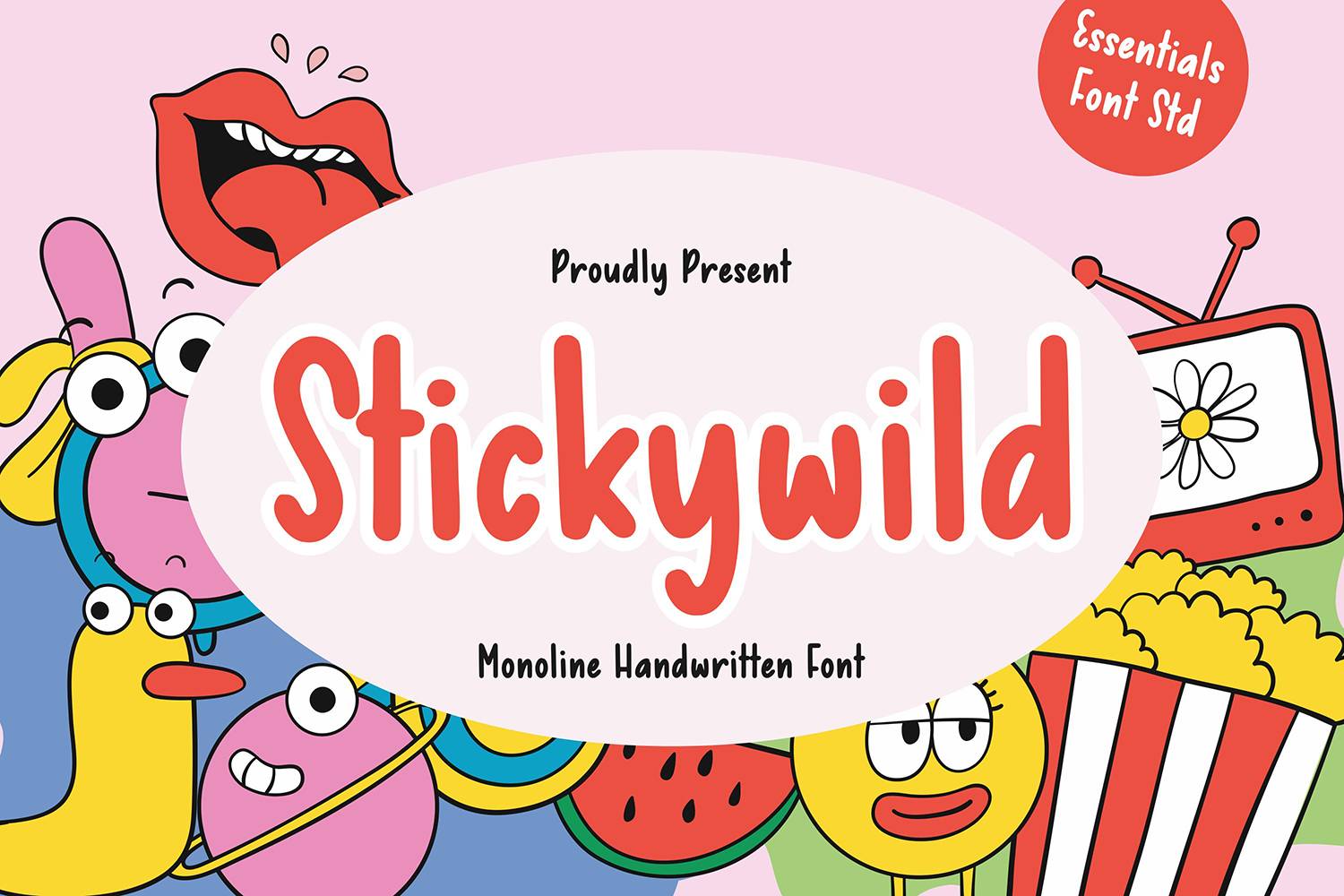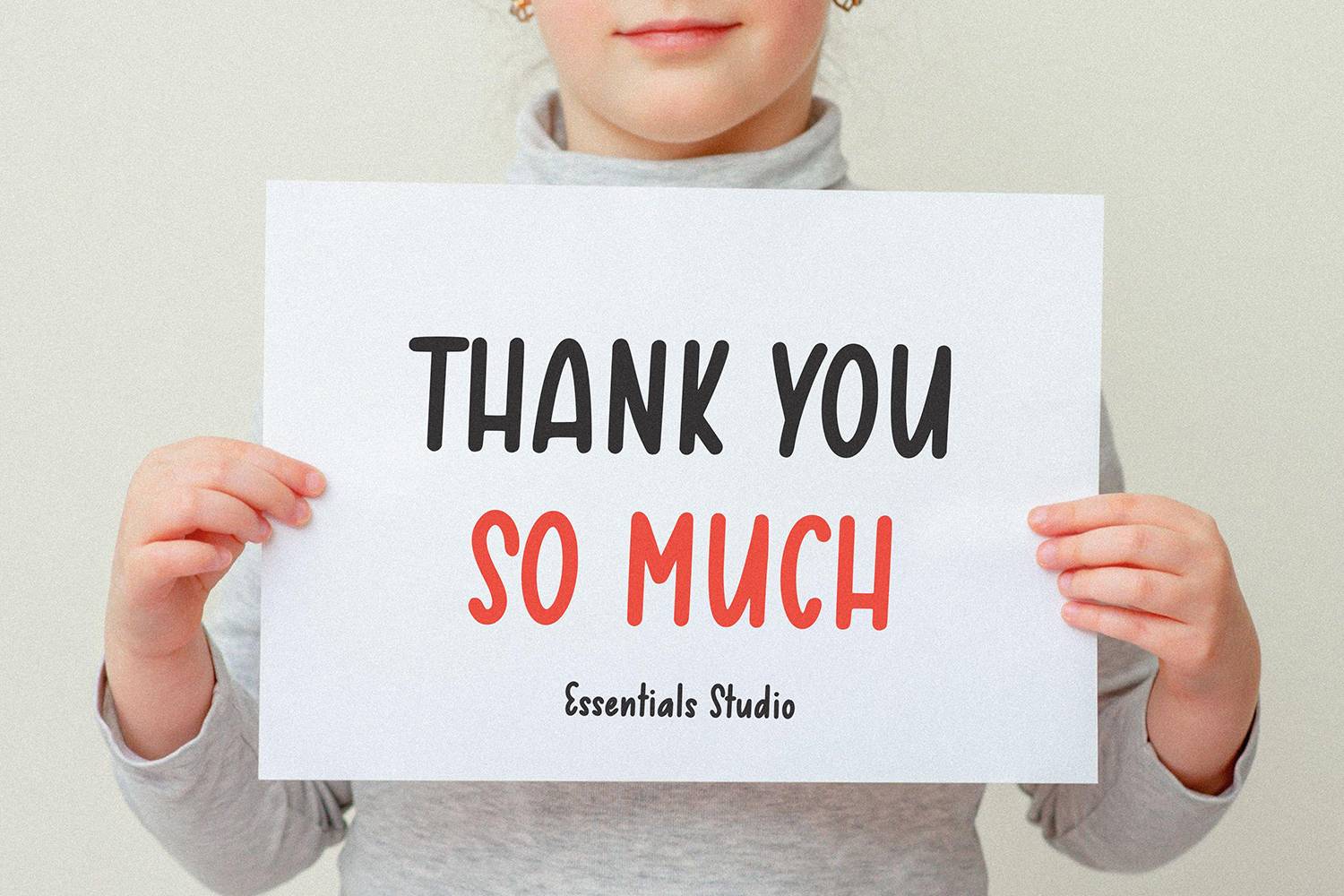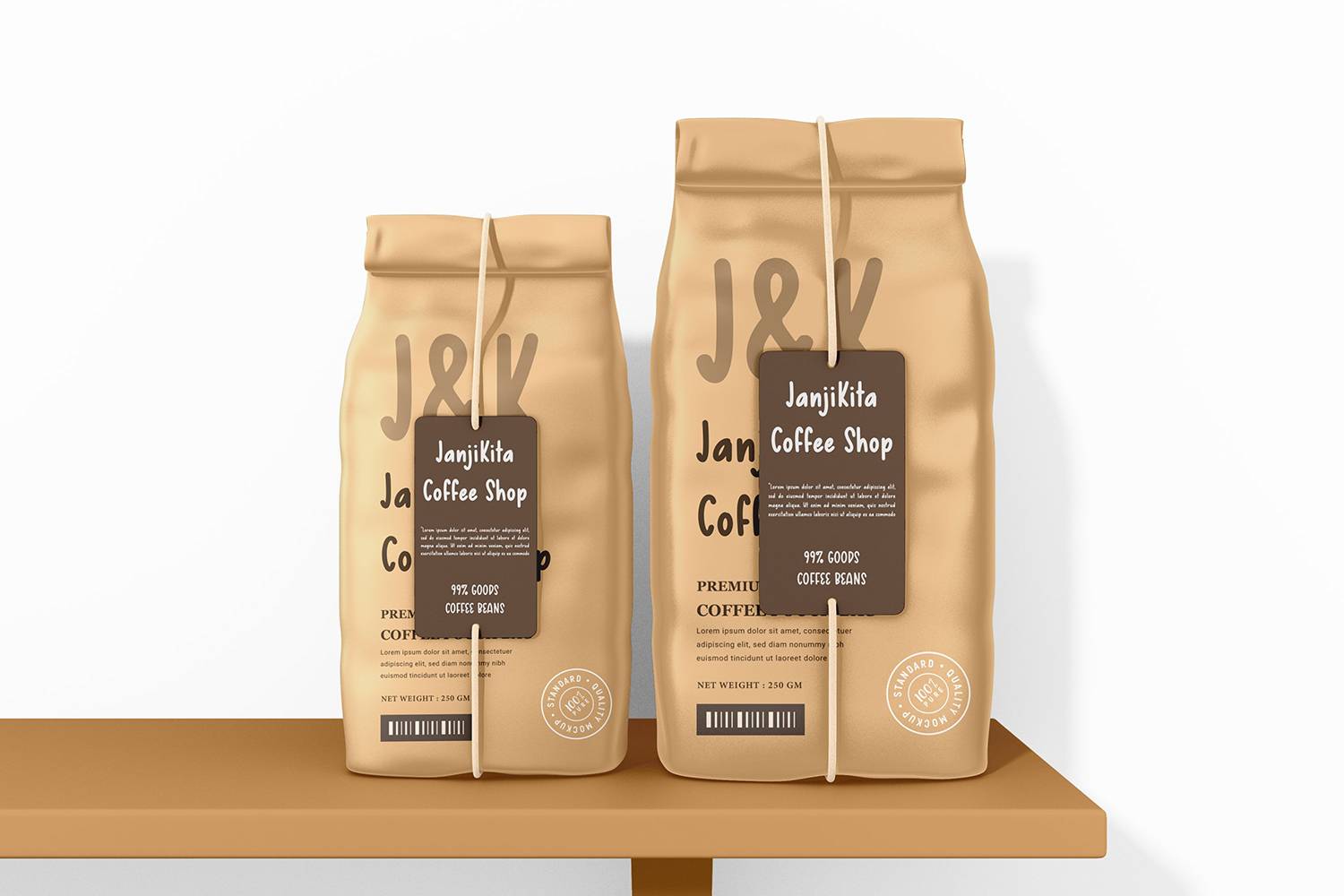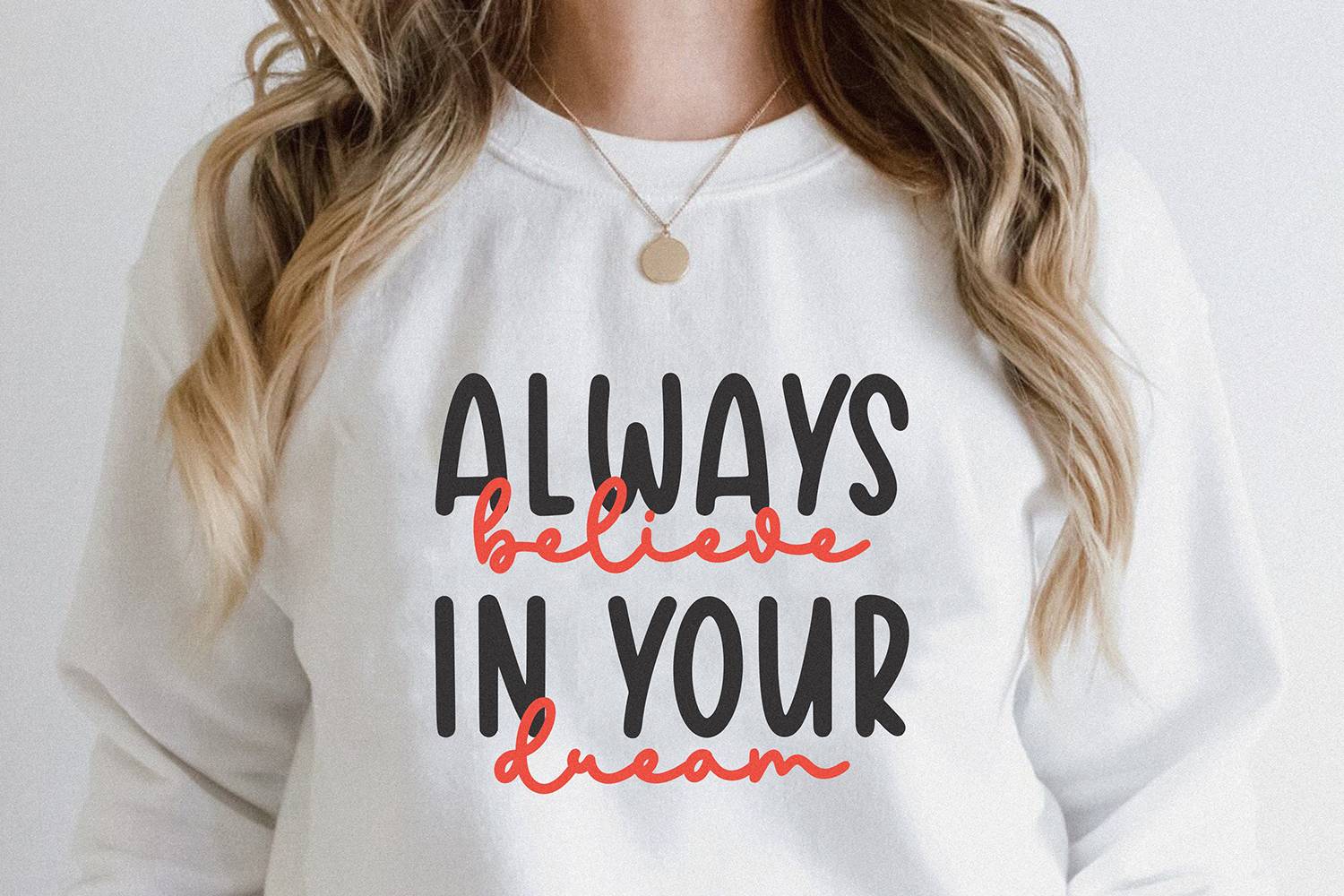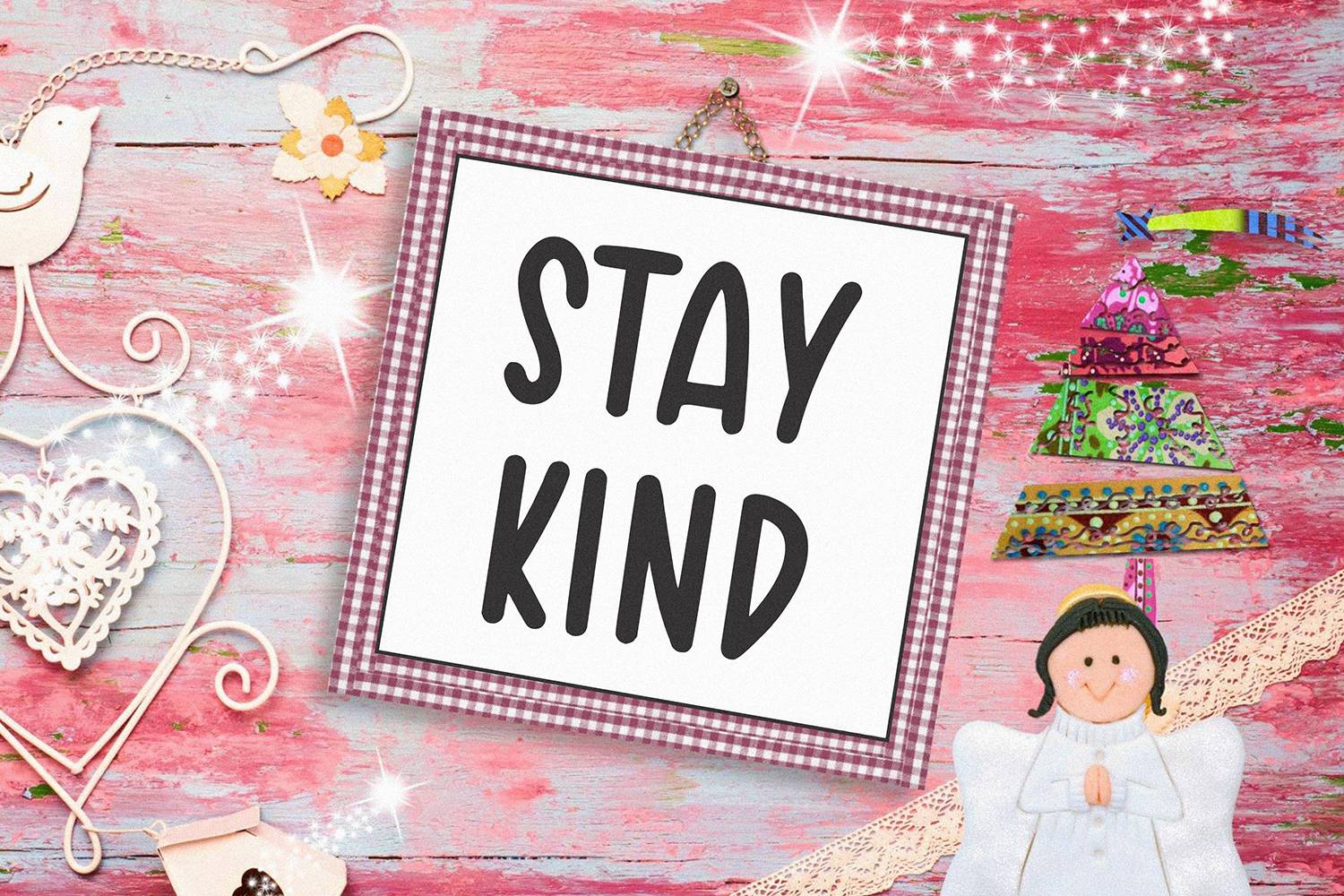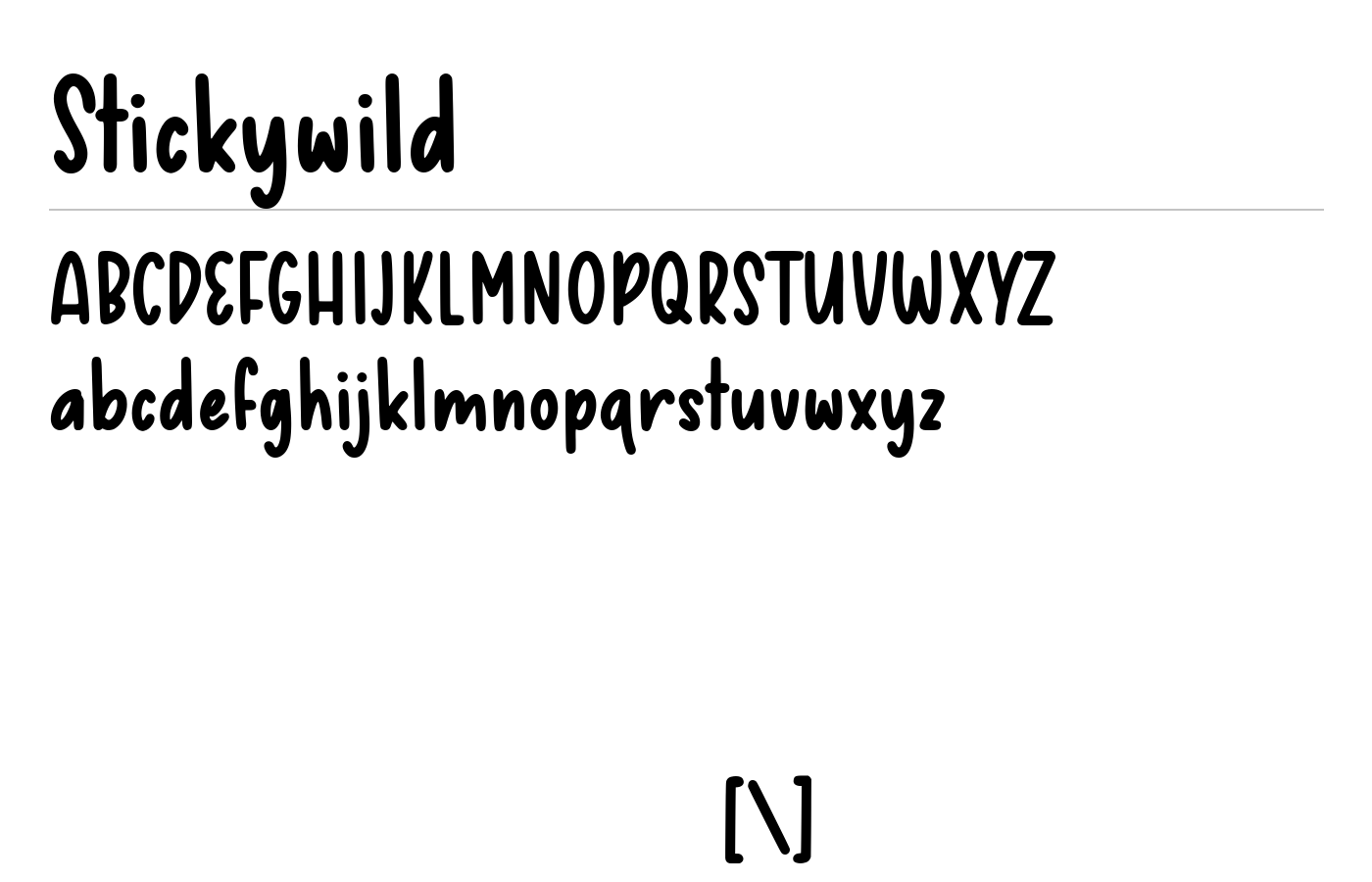
Stickywild is a playful, handwritten sans serif font with a casual and friendly vibe. Its smooth, rounded strokes and slightly irregular shapes give it an approachable and informal feel, making it ideal for projects that want to convey warmth and fun, such as children’s books, casual branding, or creative headlines. This font works best in display settings where its unique charm can shine.
Stickywild Font
About Stickywild Font
| Font family | Stickywild Font |
| Designer | Annas Rifky Anhar |